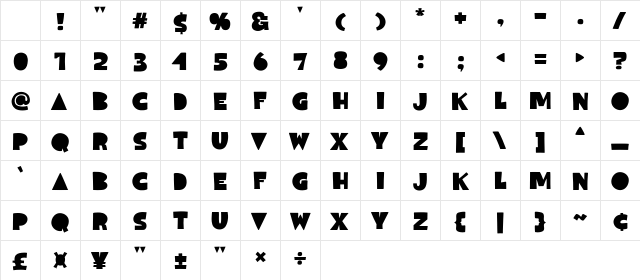
Egoless Regular
Foundry: Khurasan
Designer: Khurasan
Design Context for Egoless
Egoless is a composed and adaptable typeface that performs quietly and consistently across a wide range of design contexts.